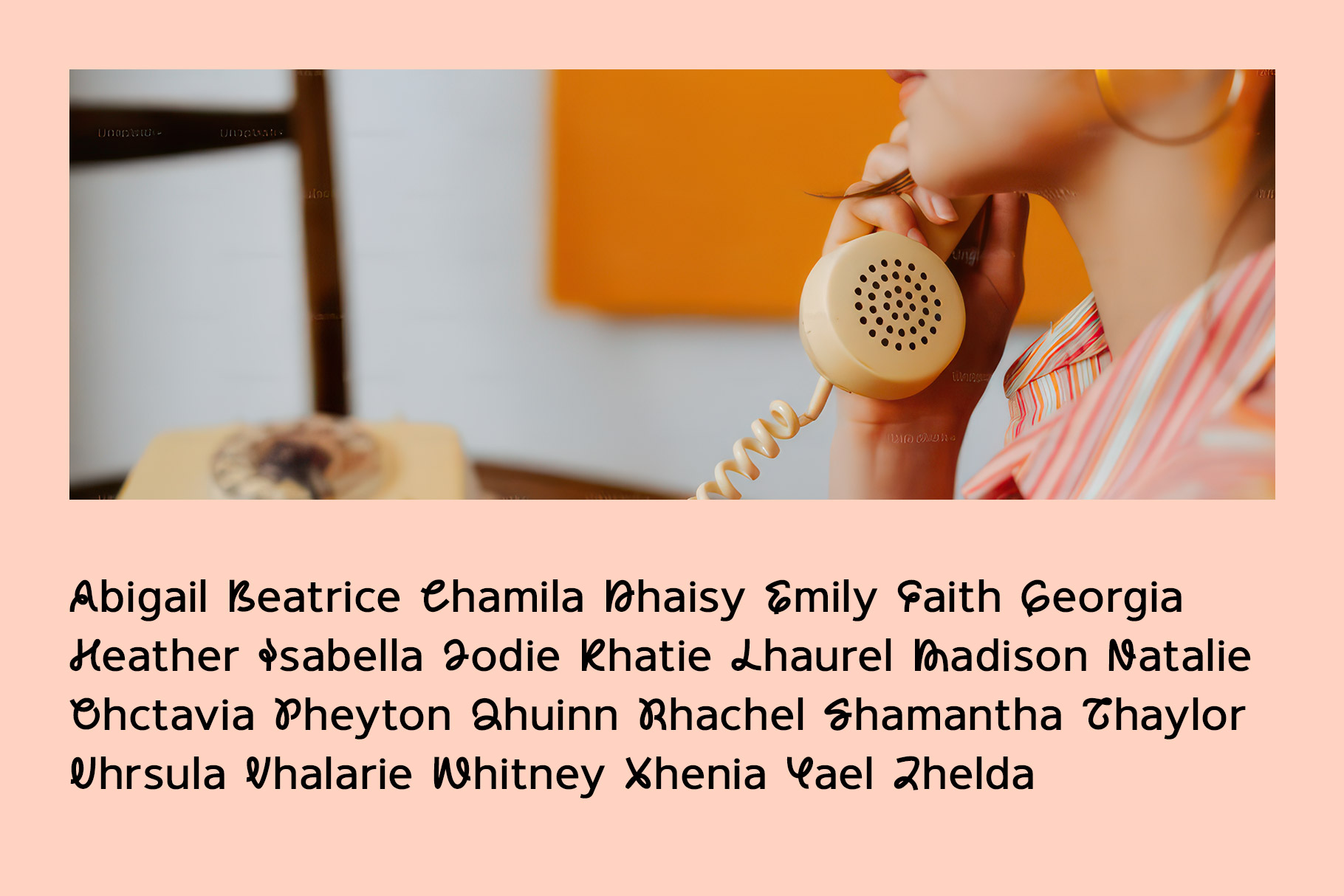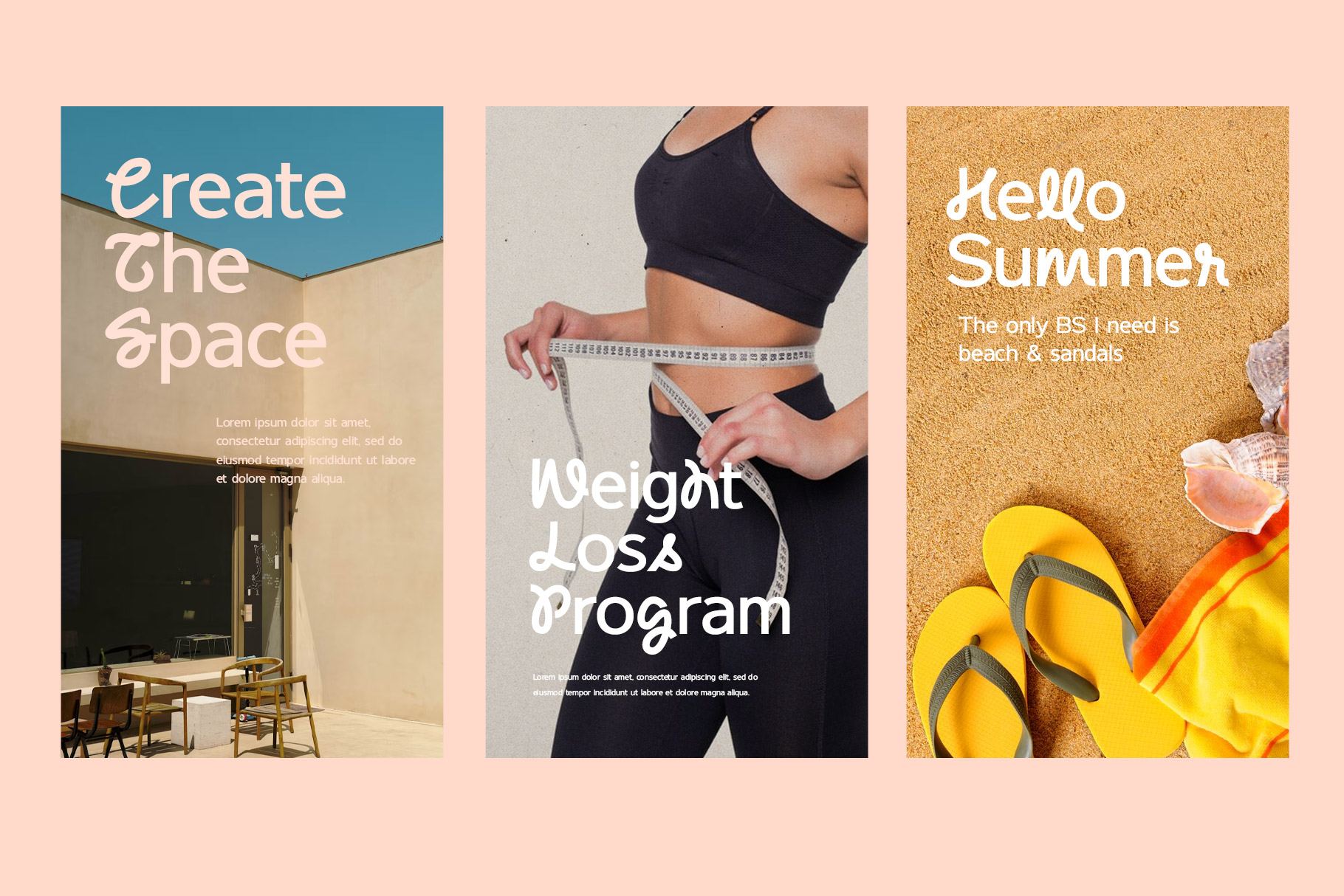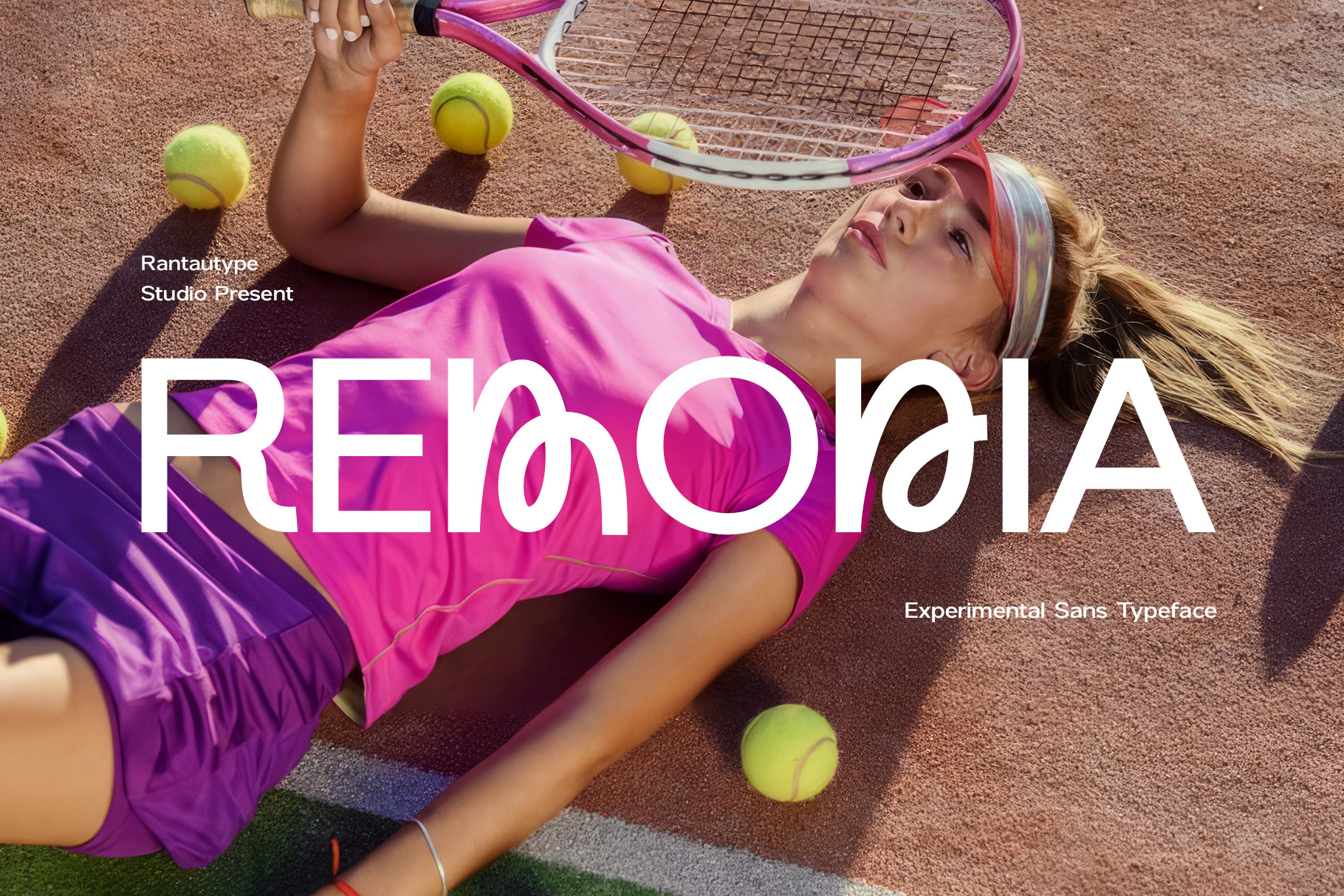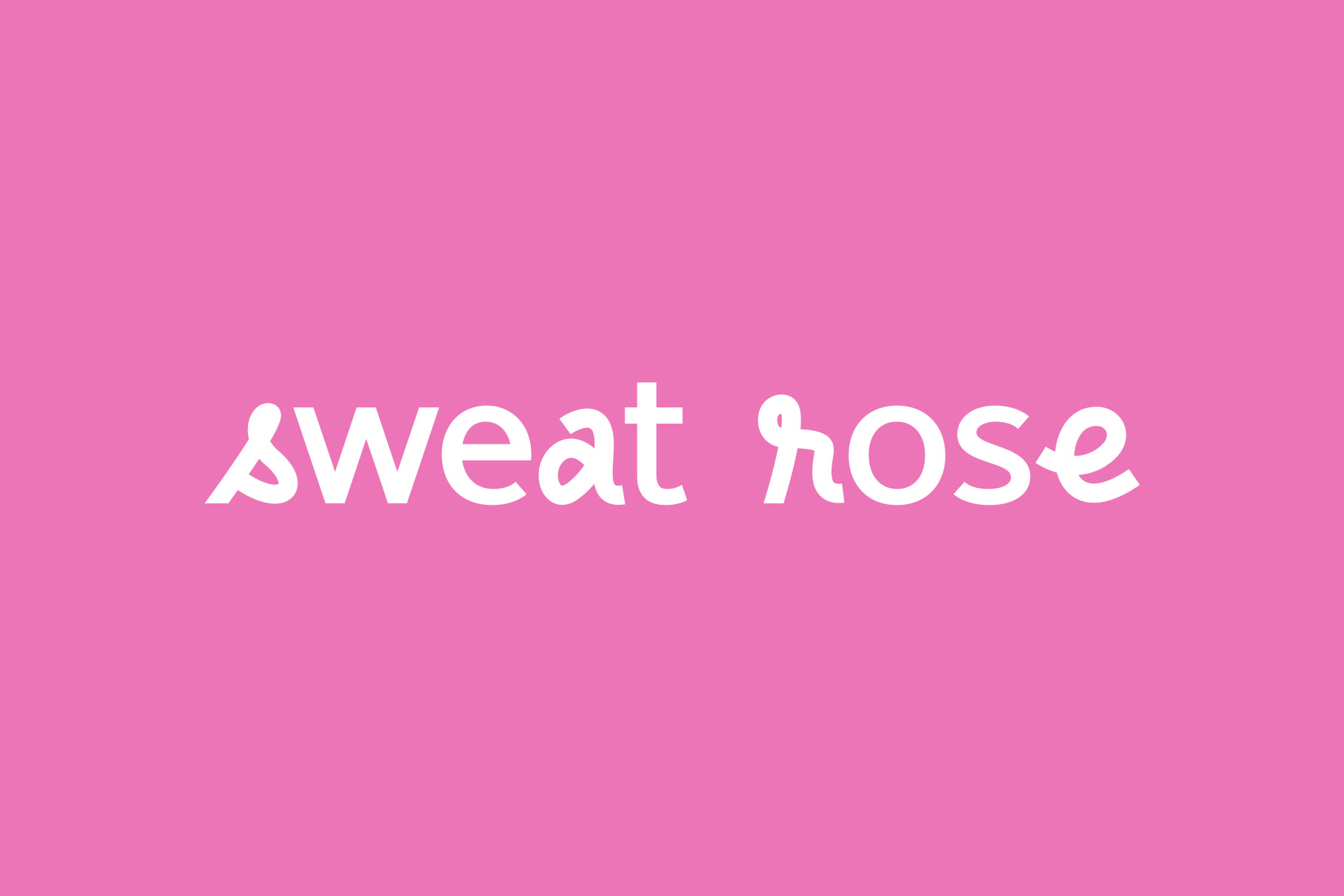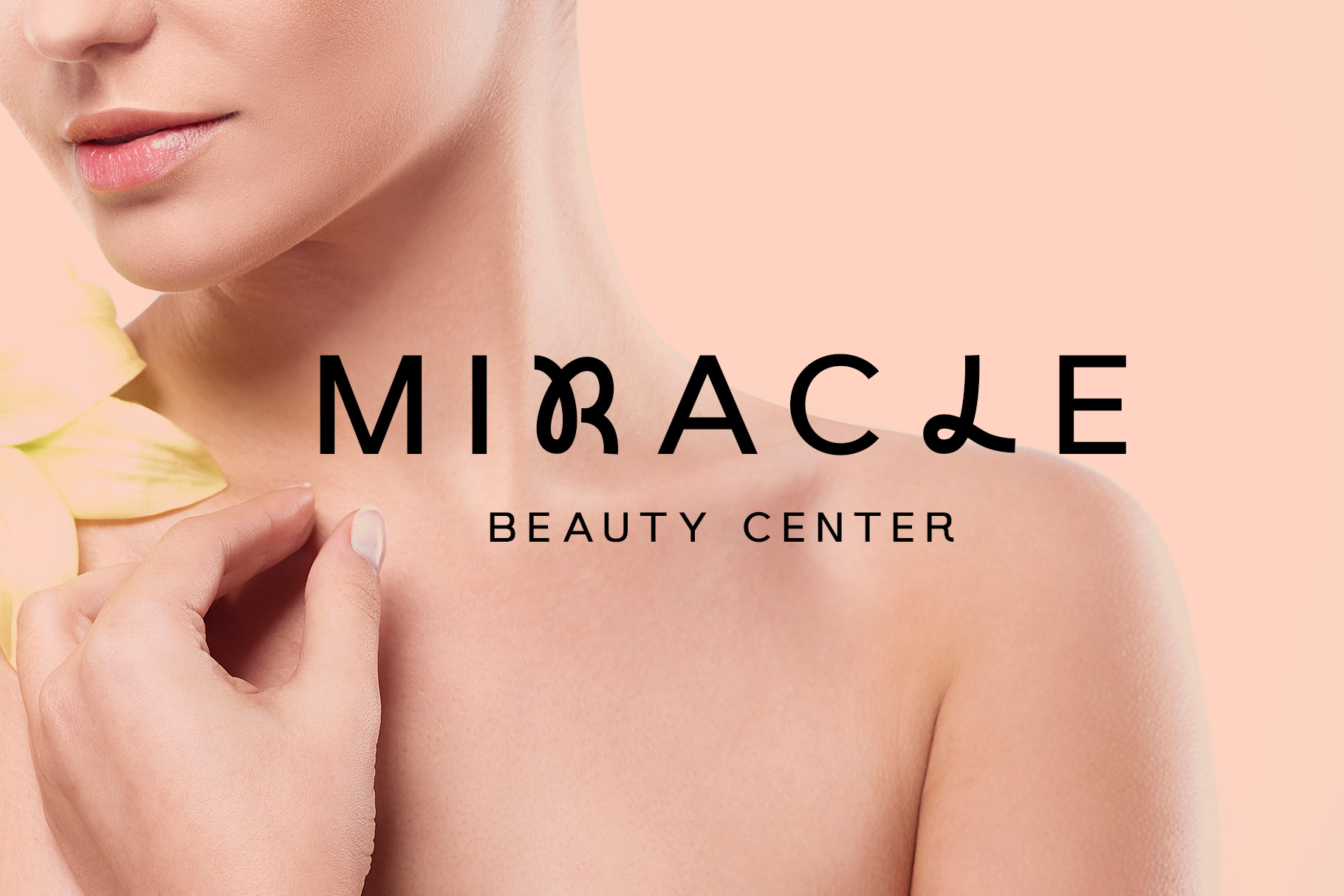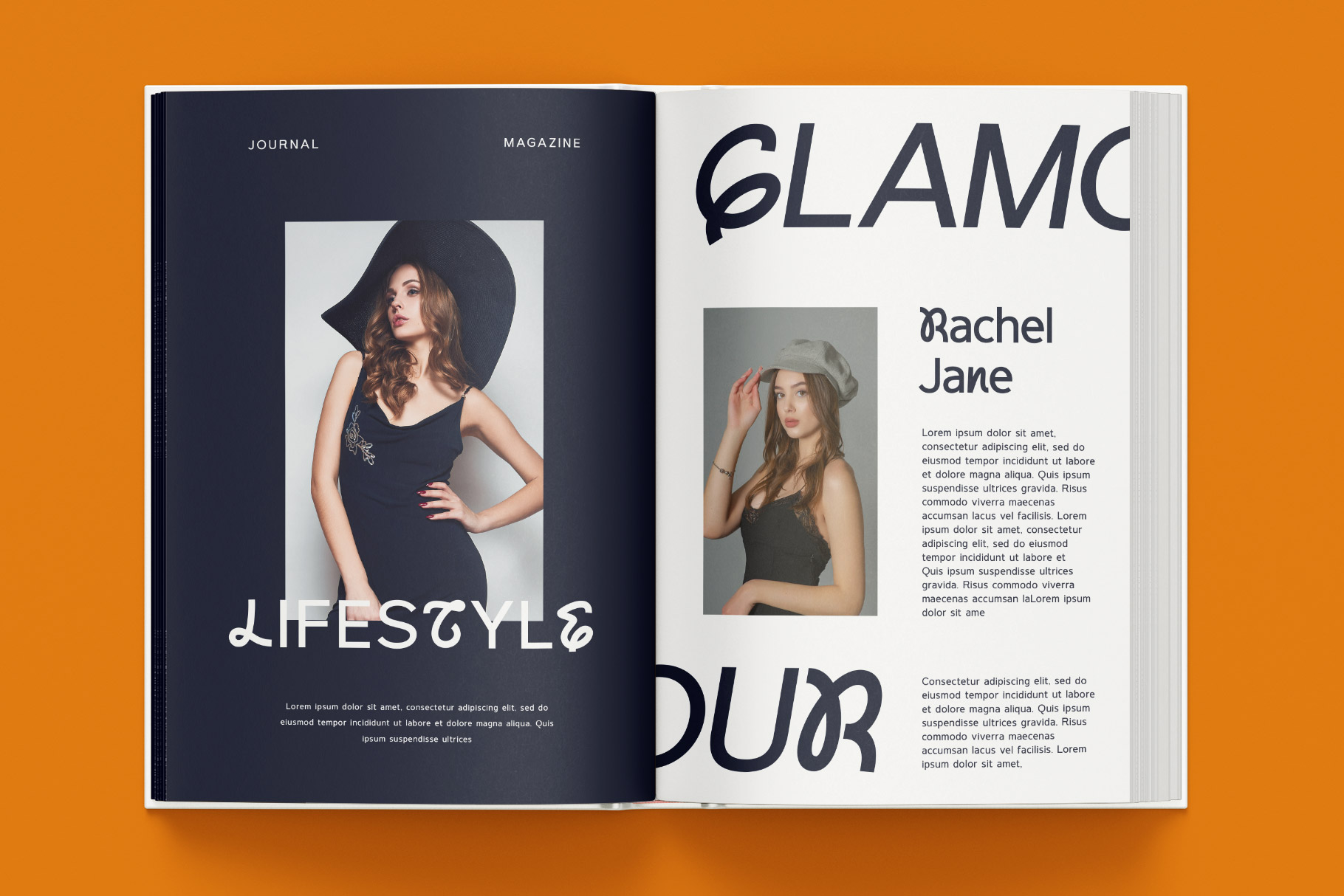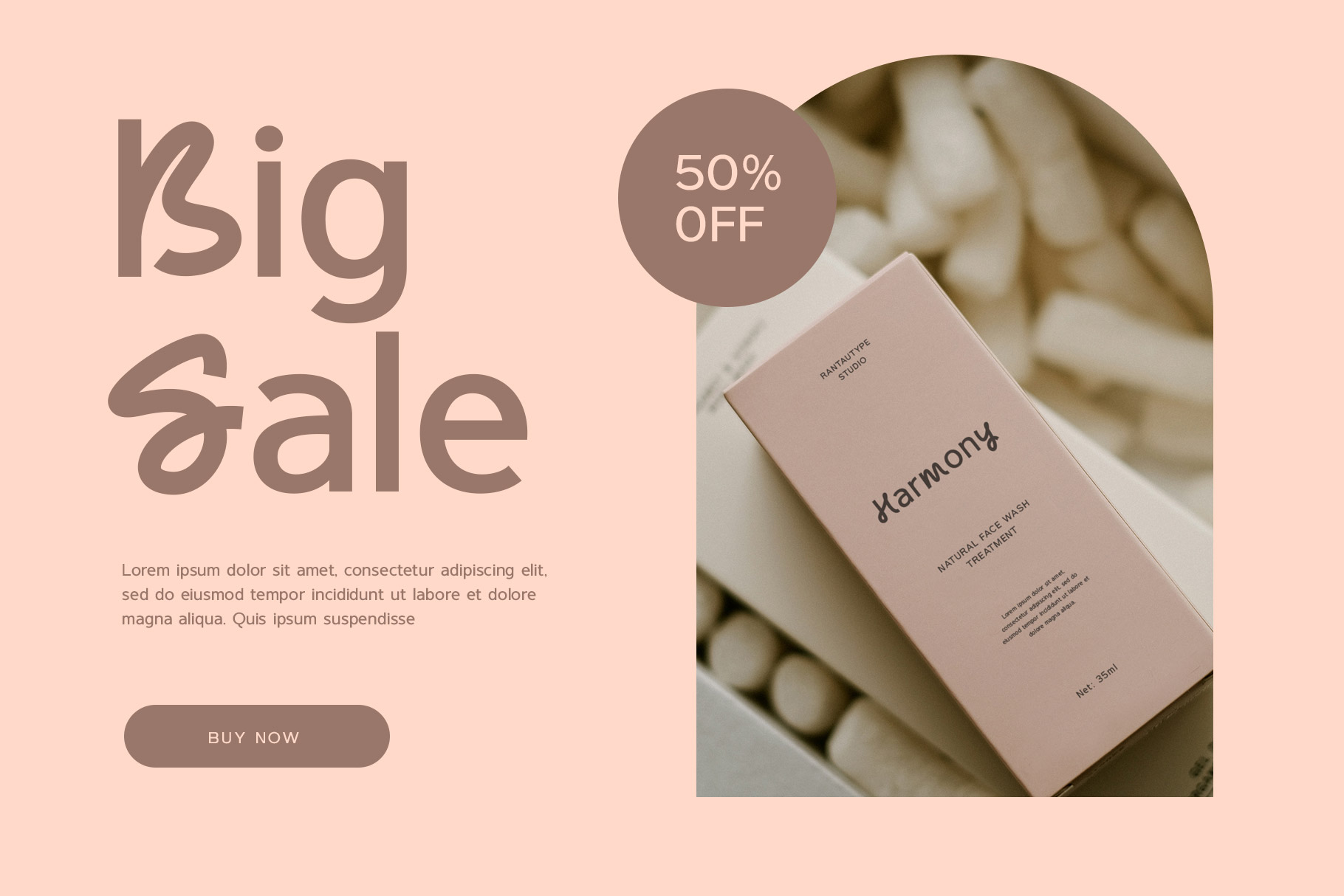
Remodia Experimental Sans Font
Remodia is a experimental sans font with fun alternate combination.. Remodia come with alternate playful look and flownes curve make it more attractive, you have the flexibility to mix & match to create the perfect combination.
Remodia is a perfectly choice for any creative endeavor, chic, lifestyle design such as logos, advertisements, watermark on photography, stationery, branding project, display and magazine, invitation, corporate brand, product design, label, business project and many other project with modern or fun touch.